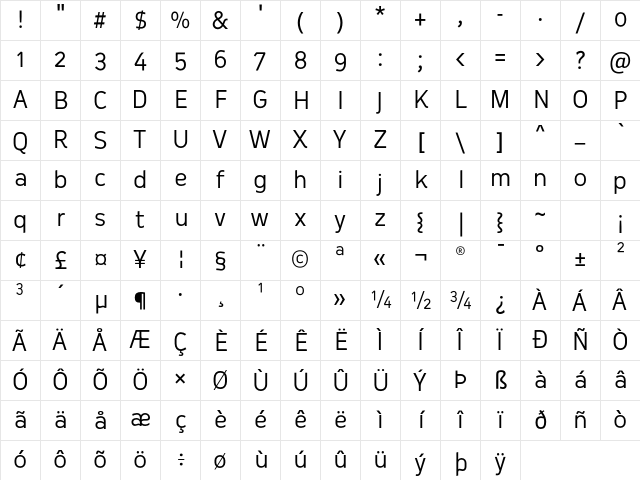
Oceania-Regular Regular
Foundry: Morice Kastoun
Oceania-Regular is a composed and adaptable typeface that performs quietly and consistently across a wide range of design contexts.
Who designed the Oceania-Regular font?